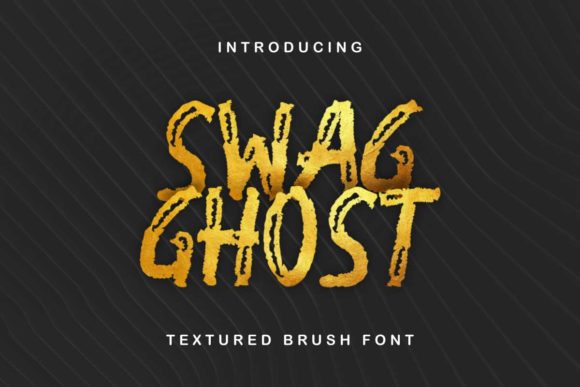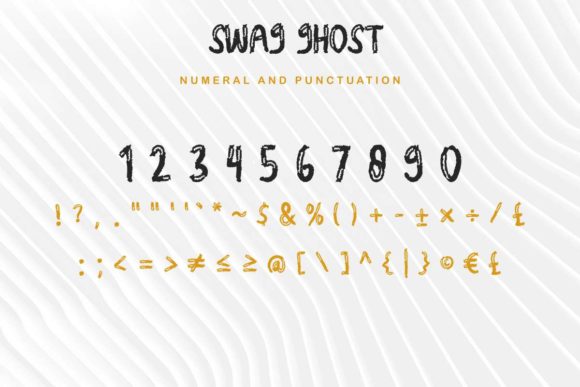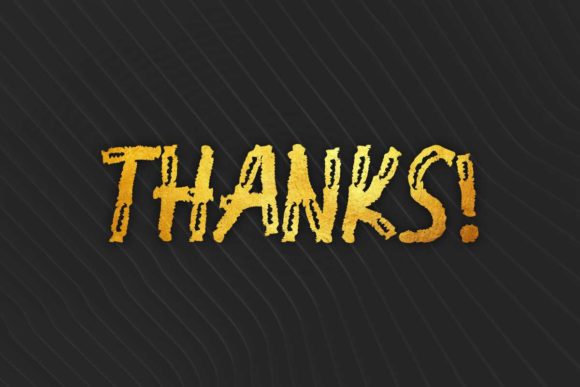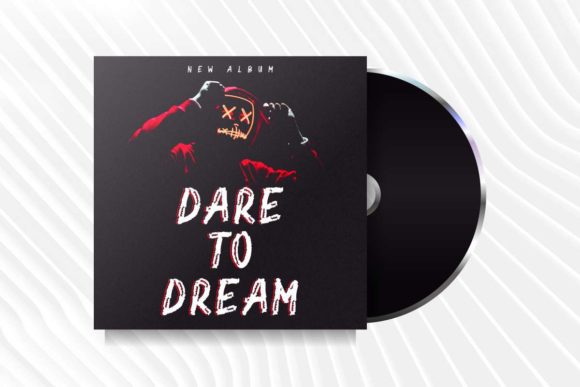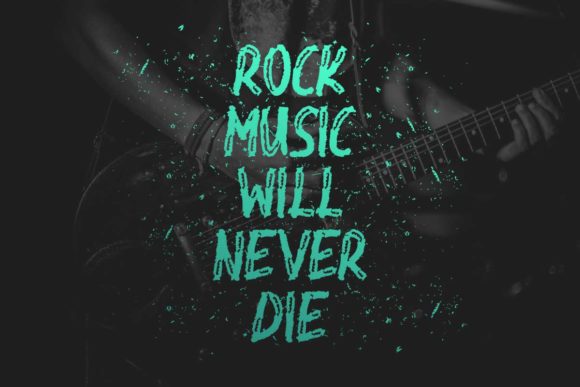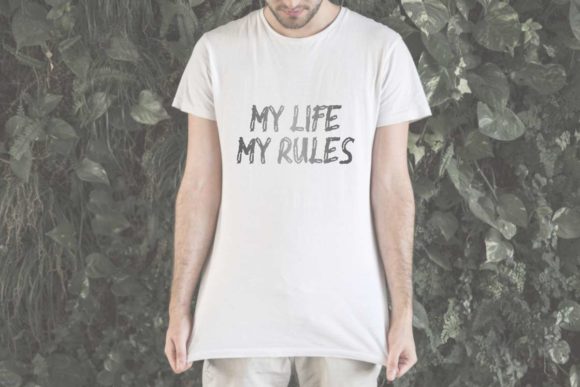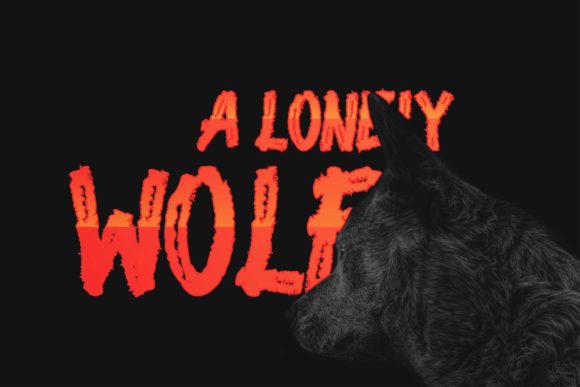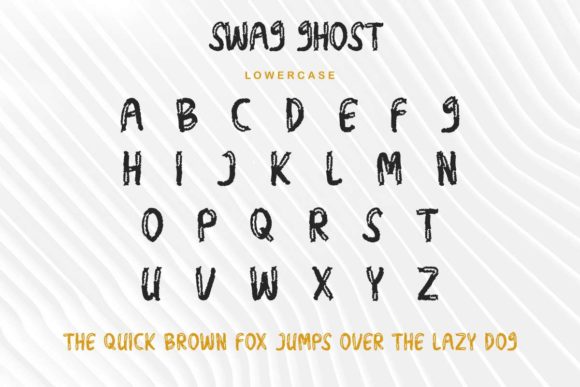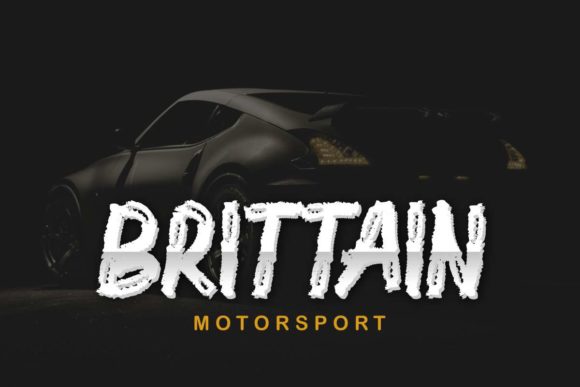
Swag Ghost Font
Swag Ghost is a modern, bold handwritten font, created by using a brush pen. This font is the perfect fit for all of your logos, branding, social media, and crafty DIY projects.